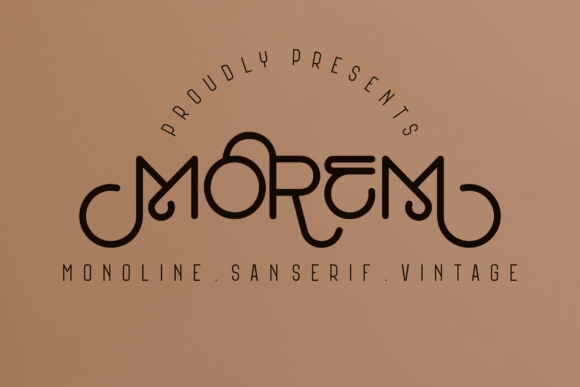
Morem Font
Introducing Morem Font, the captivating sans serif font that will add a touch of elegance and vintage charm to your creative endeavors. Morem Font is the brainchild of Monoletter, a renowned font foundry known for their exceptional craftsmanship. Each letterform is meticulously crafted to exude a sense of sophistication and refinement, making it the perfect choice for designers seeking to create timeless and impactful designs.
This font is incredibly versatile, lending itself beautifully to a wide range of design applications. Whether you're designing logos, branding materials, invitations, or social media graphics, Morem Font will elevate your work with its subtle yet undeniable presence. Its gentle curves and flowing lines evoke a sense of nostalgia, adding a touch of warmth and charm to your designs.
Morem Font is particularly well-suited for signature lines, where its refined character will add a touch of personal style and authenticity. Imagine your signature line adorned with the graceful strokes of Morem Font, creating a lasting impression that reflects your unique personality and creativity.